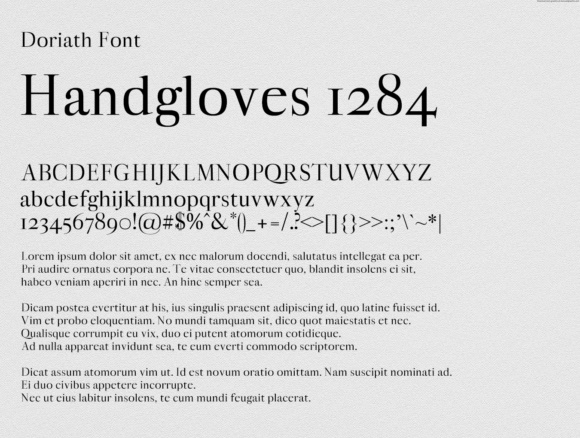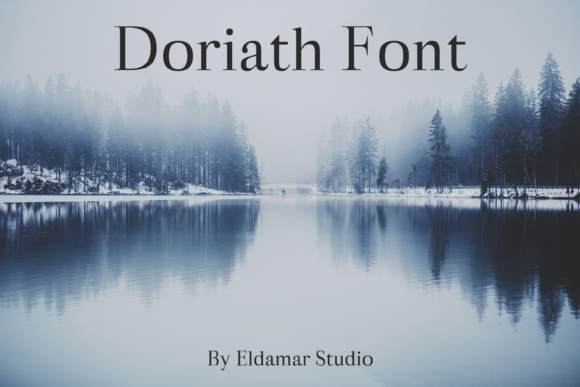
Doriath
About Doriath Font
Doriath is a wonderful font with a unique, detailed and handmade look. Doriath looks amazing in all caps with a wide-set spacing and is beautiful on it’s own. Doriath is completely timeless and perfect for giving a elegant feel to your design.